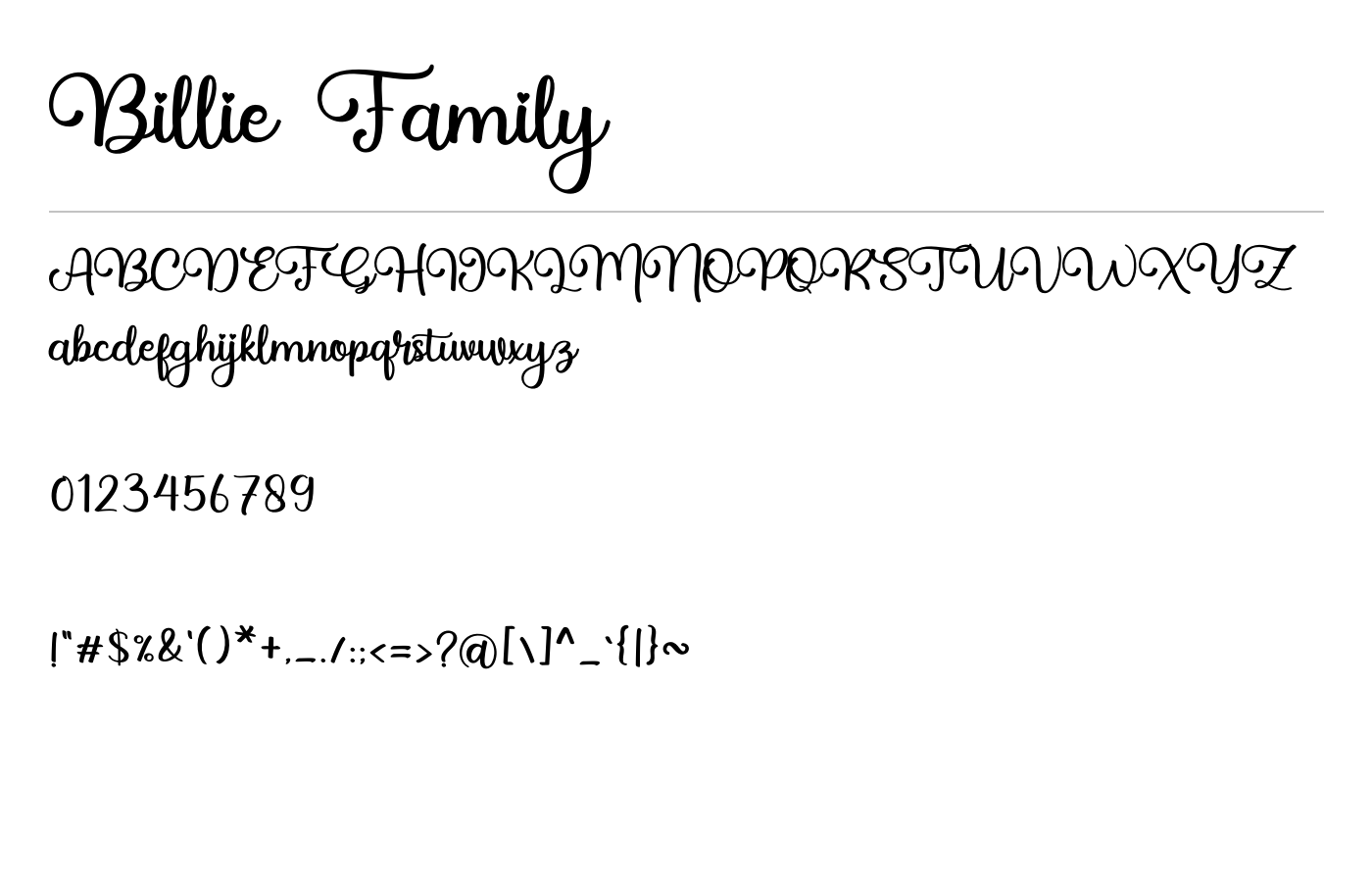
Billie Family is a charming script font with a handwritten feel, featuring fluid, delicate strokes and playful heart-shaped dots that add a touch of sweetness. Its elegant yet casual style makes it perfect for wedding invitations, greeting cards, and branding that seeks a personal, warm, and friendly vibe. This font works wonderfully for headlines and decorative text where a graceful, approachable look is desired.
Billie Family Font
About Billie Family Font
| Font family | Billie Family Font |
| Designer | Dianhaniff |